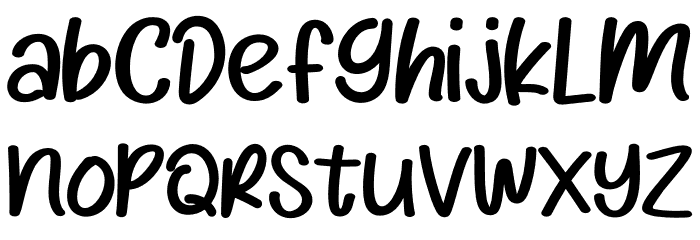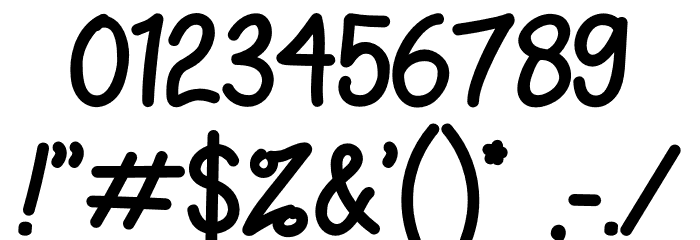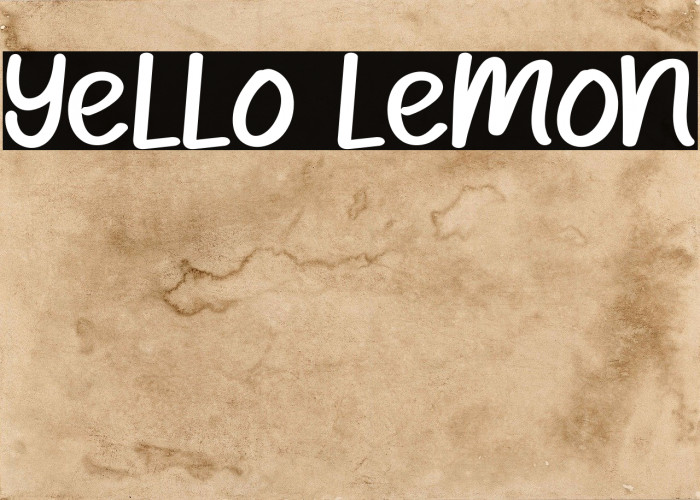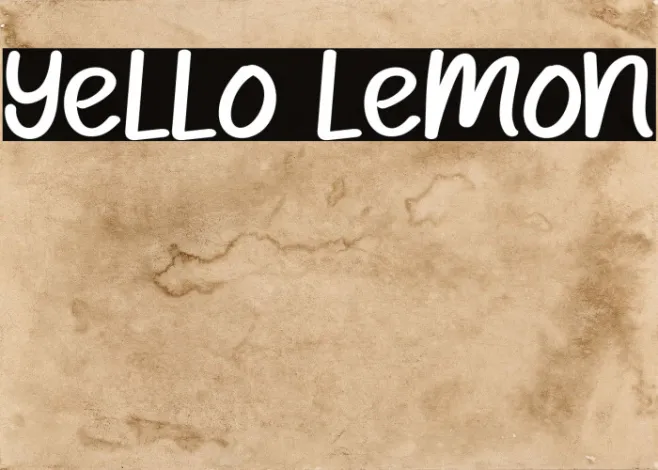
Yello Lemon Font
This font features a playful and energetic style, characterized by its bold and rounded letterforms. The strokes are consistent in thickness, providing a uniform appearance that enhances readability. The letters have a slight slant, adding a dynamic and informal touch, making it suitable for casual and fun designs. The uppercase and lowercase letters maintain a cohesive look, while the numerals and special characters complement the overall style. This font's smooth curves and friendly appearance make it ideal for projects that require a lively and approachable aesthetic.
A playful, bold, and rounded font with a dynamic and informal style.
- Proposed Projects: Ideal for children's books, playful branding, social media graphics, and event invitations.
- Overall Style: Playful